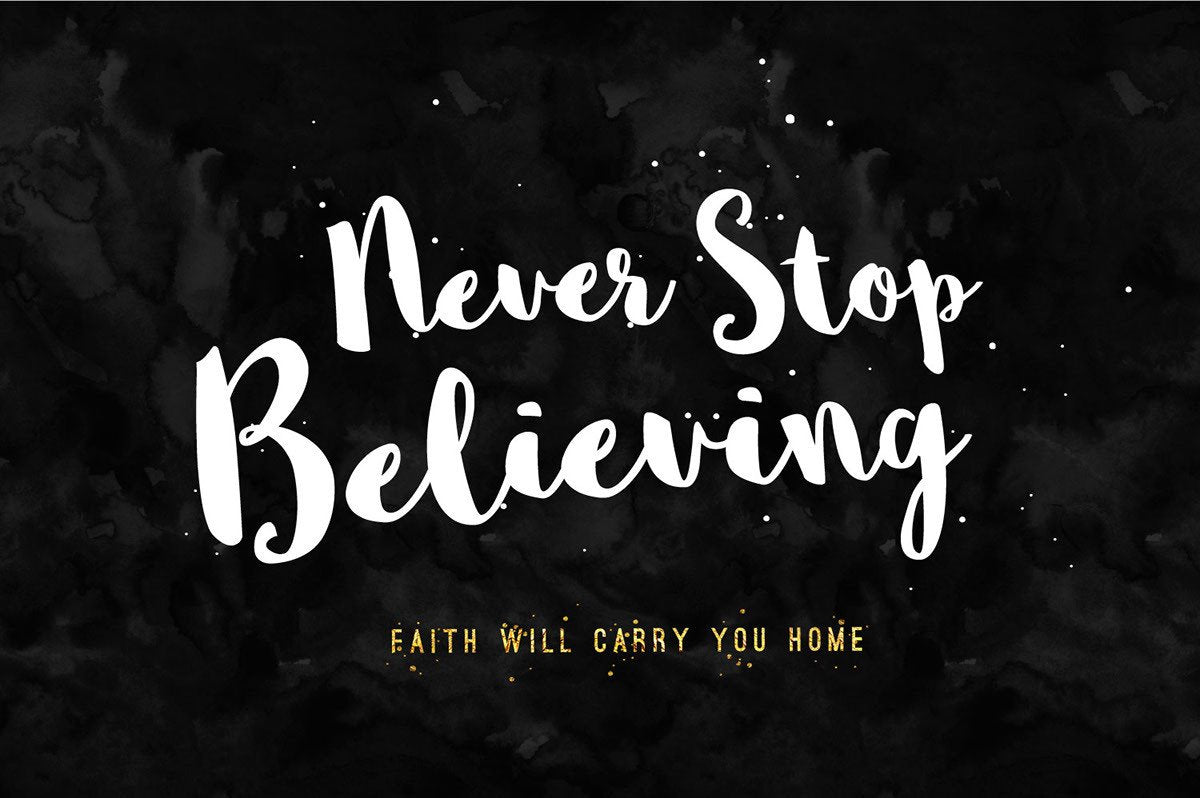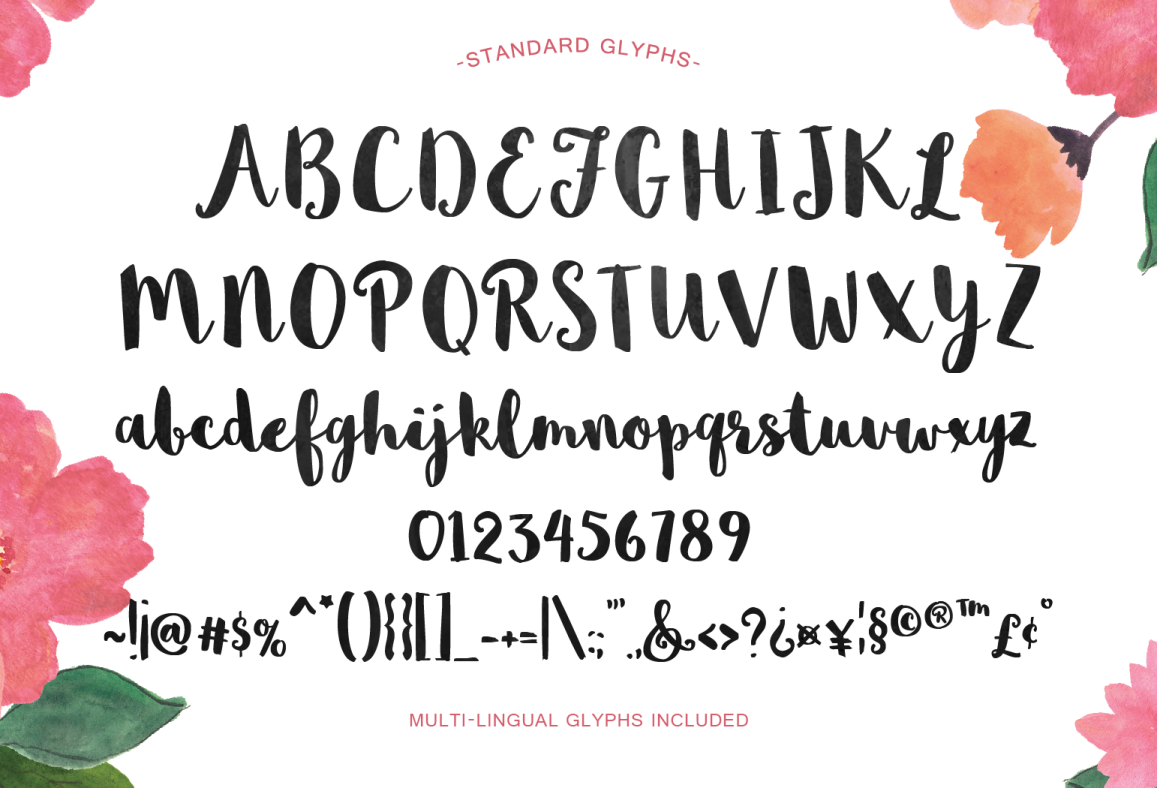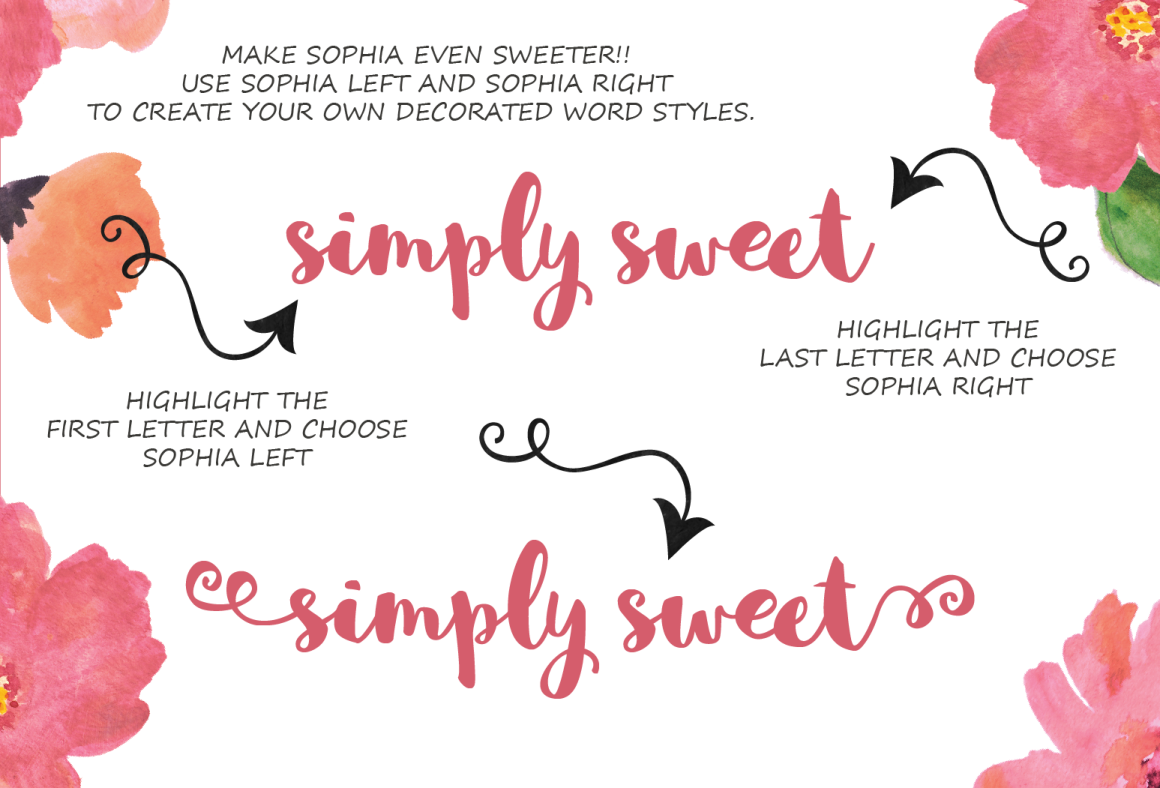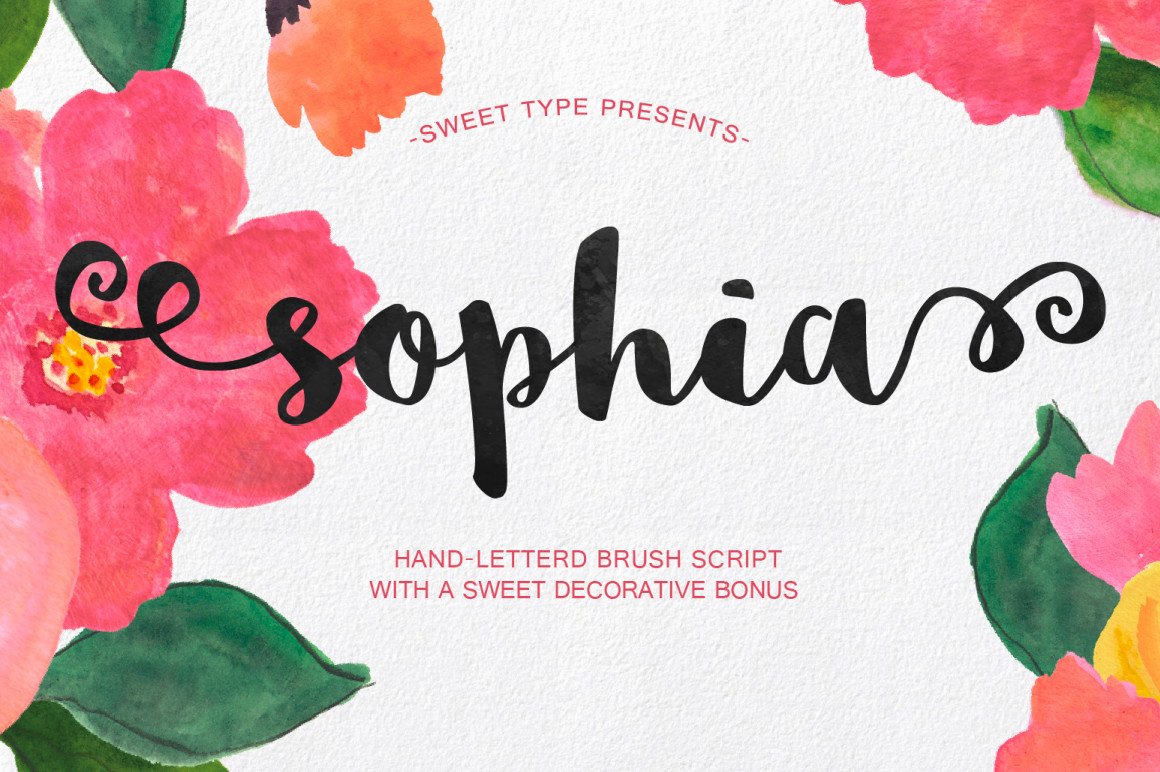
Sophia – Free Handlettered Brush Script Font
It’s time to introduce you to our latest amazing free font Sophia, a handlettered script font made by the super-talented Emily Spadoni. This font is sweet, saucy, and a little shabby. A new hand-lettered brush style typeface.
And an even Sweeter Bonus Two additional ornamental extra font files. Sophia Left and Right enable you to create your own decorated word styles. Left to add ornament at the beginning, Right to add ornament on the end. The possibilities are endless.